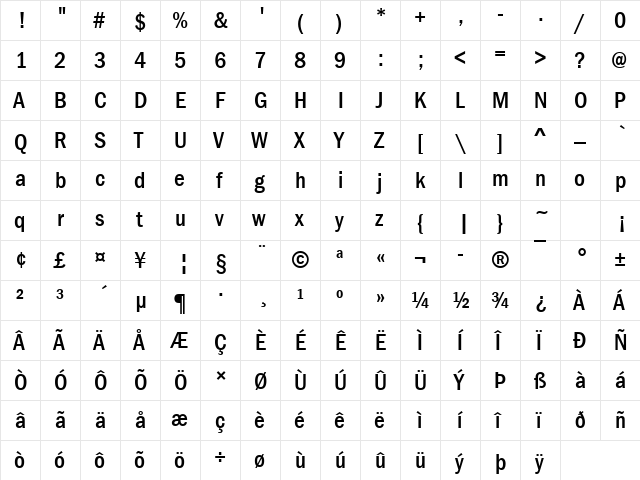
font158 Regular
Design Context for font158 Typeface
font158 offers clean, dependable letterforms without strong stylistic allegiance, making it a practical choice for designers who need flexibility.